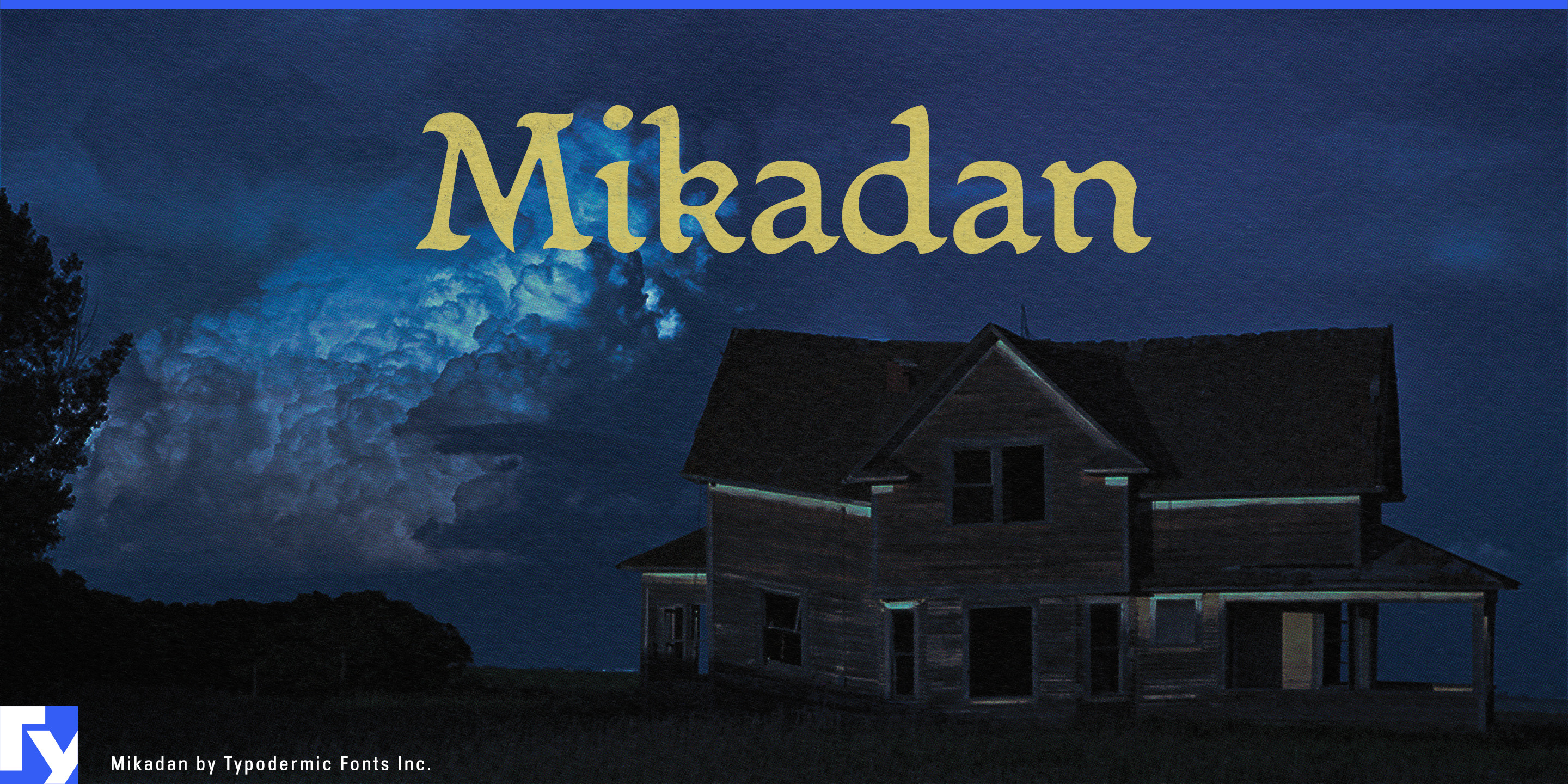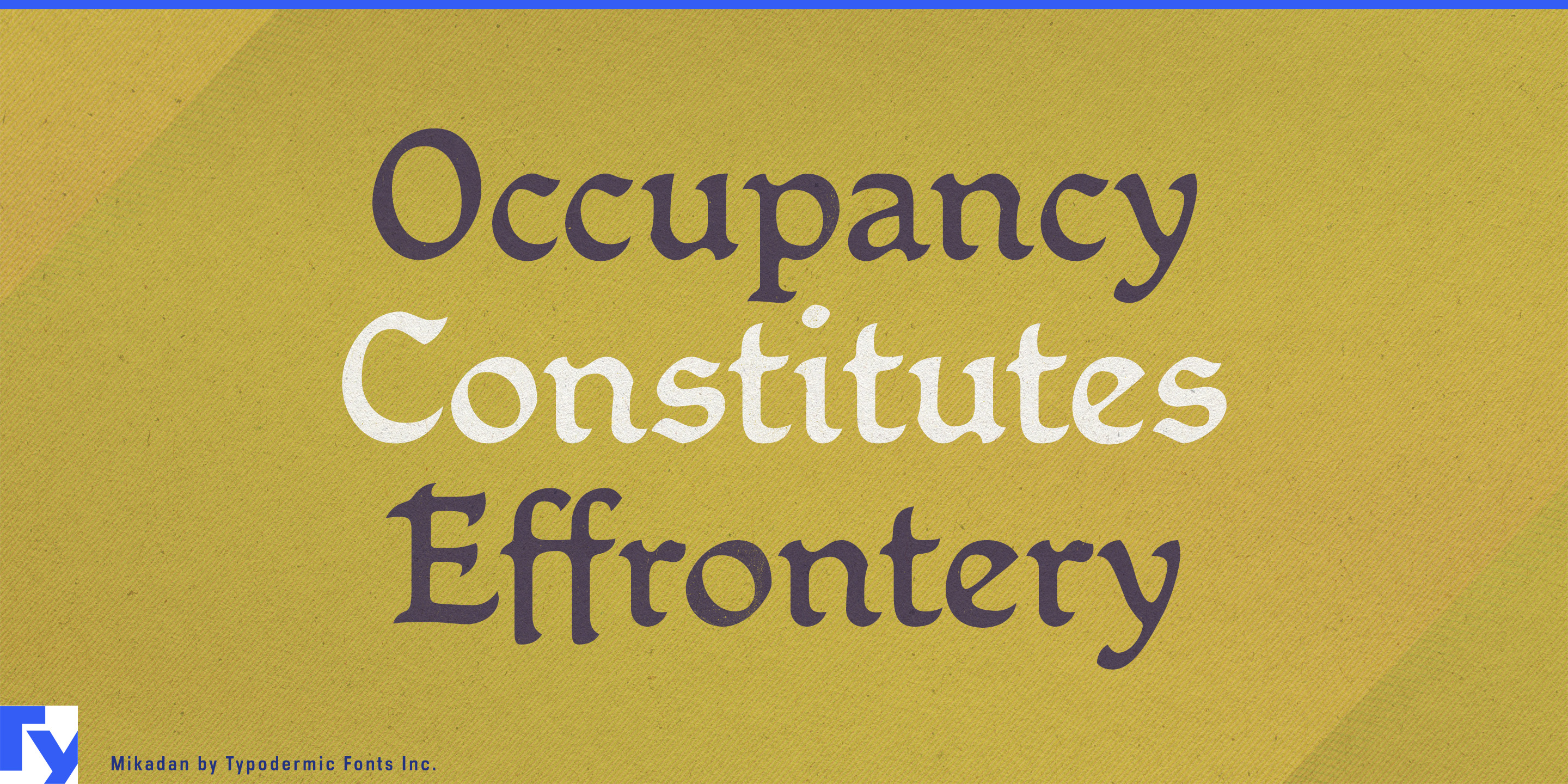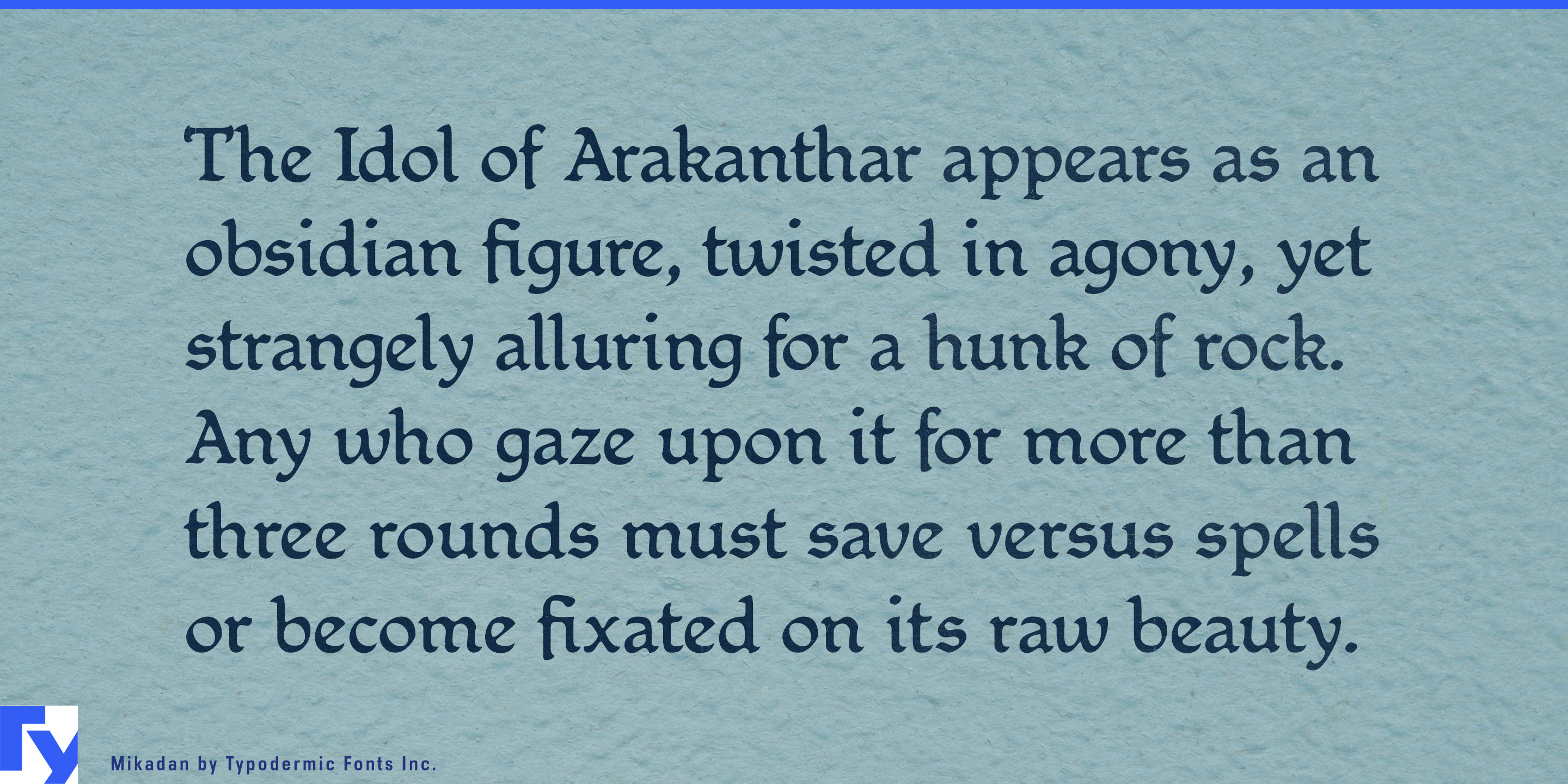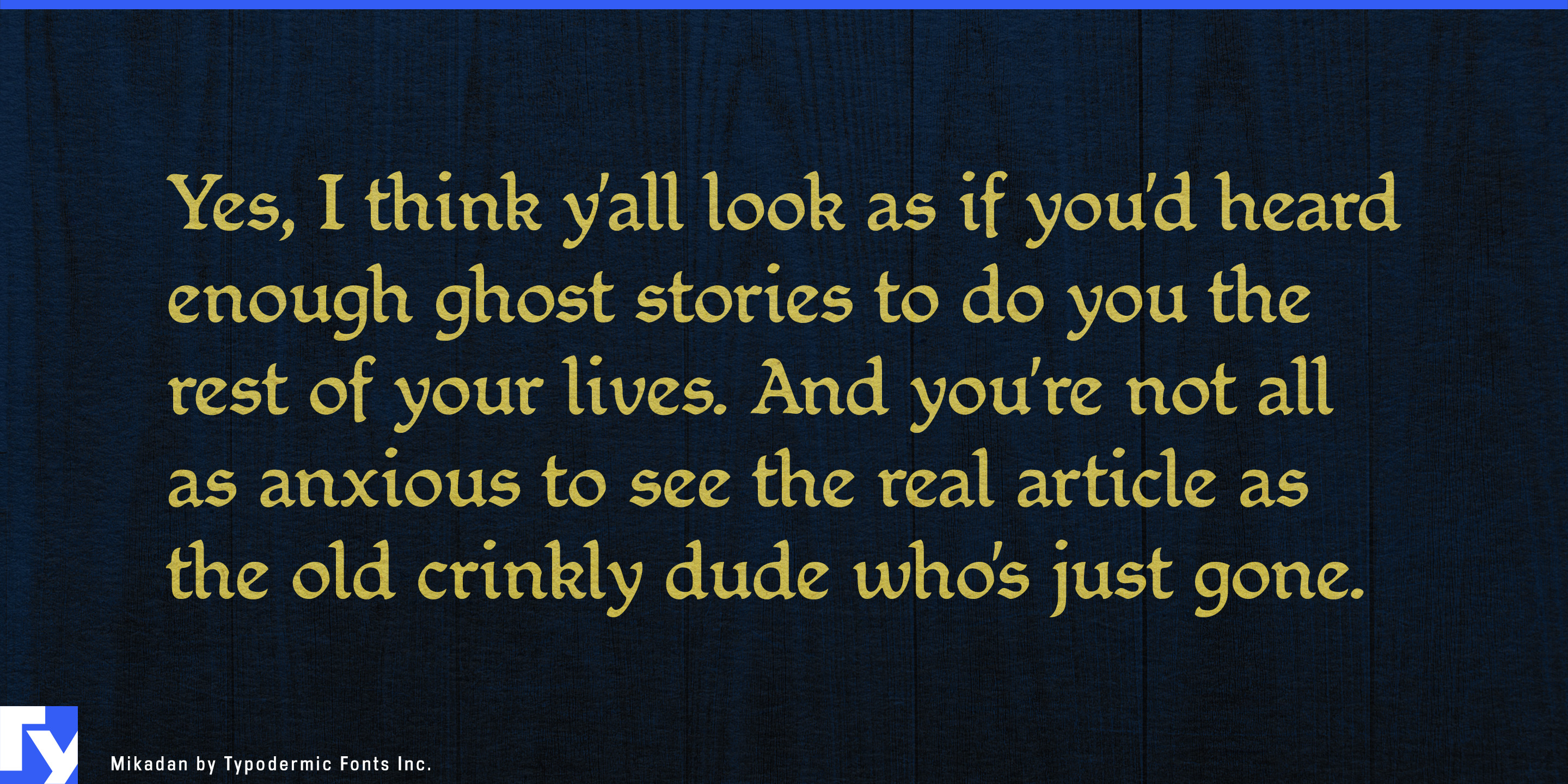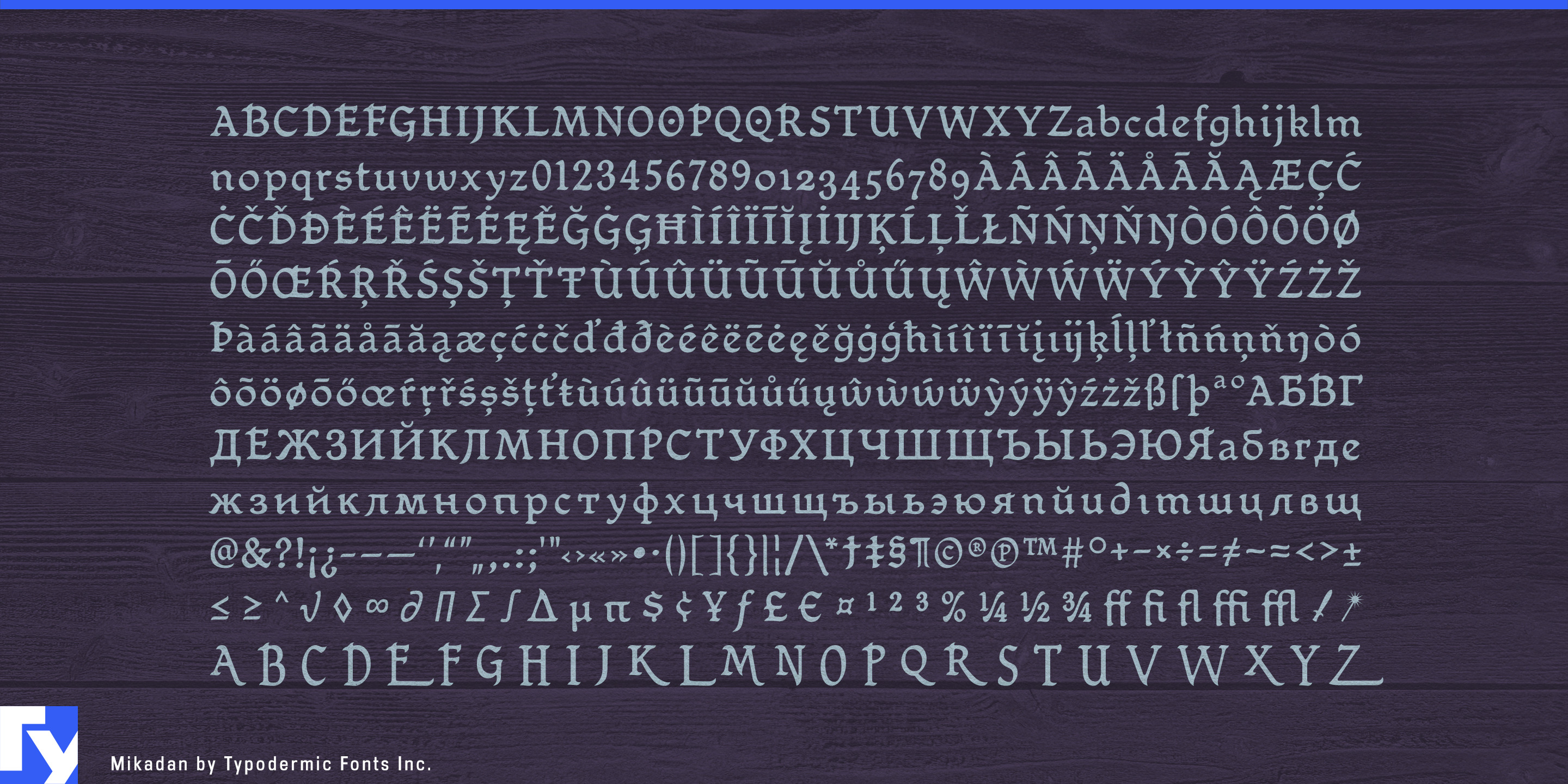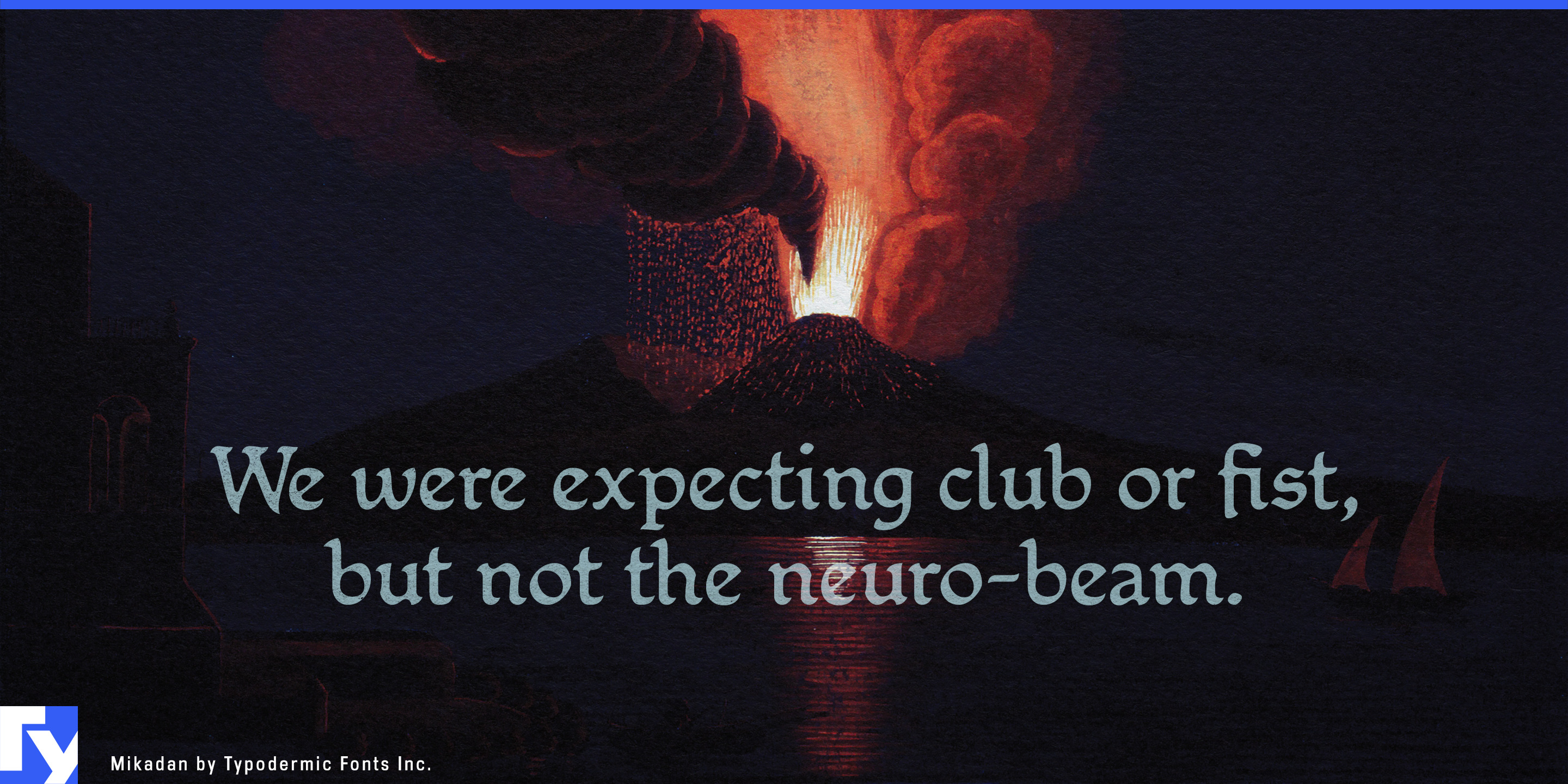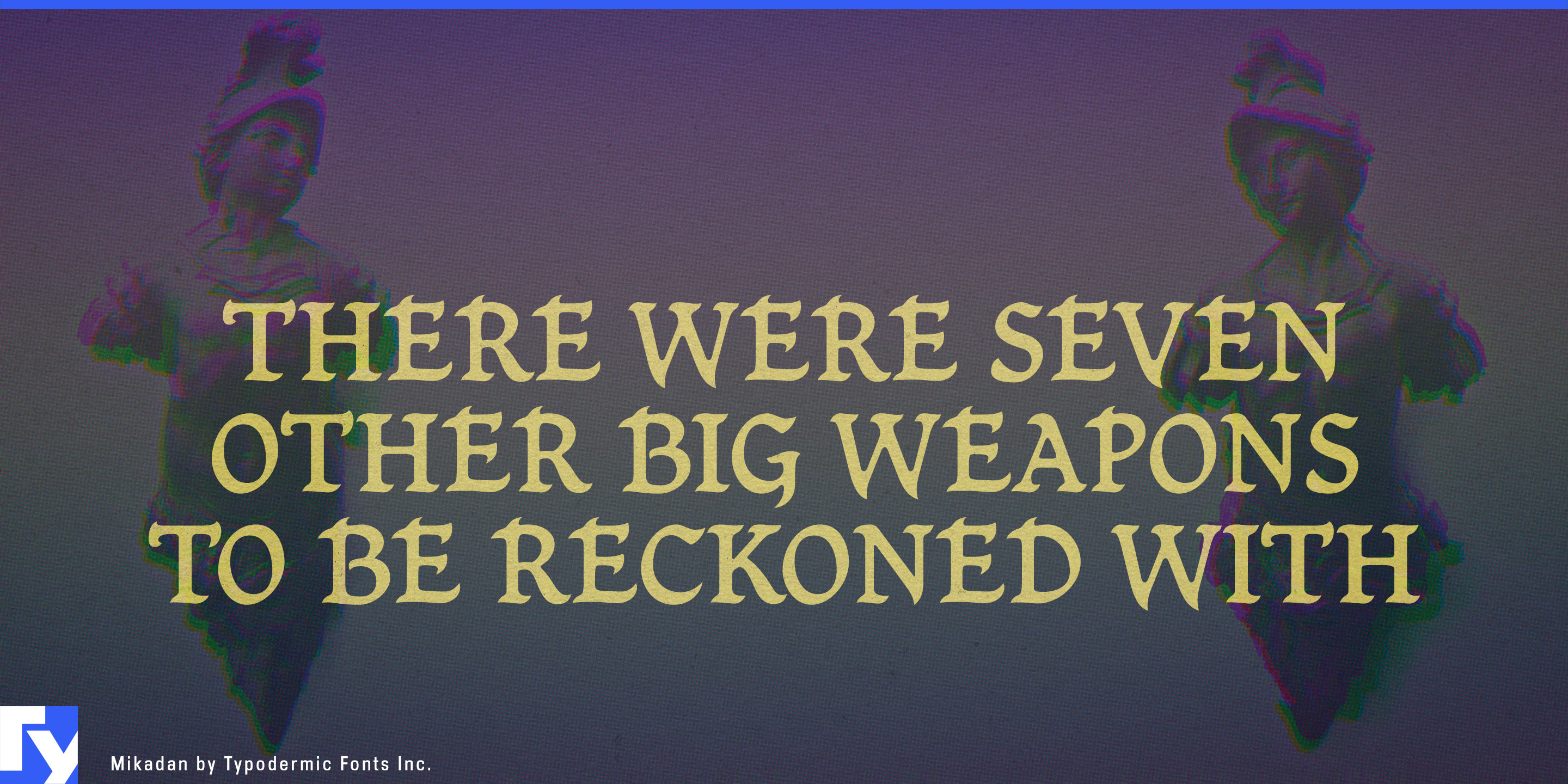
Mikadan
Mikadan walks the line between medieval romance and modern clarity, bringing the warmth of hand-drawn curves to a form that reads effortlessly in any age. Its letterforms echo the calligraphic grace of historical models like Verona, Illumanistic, and Motto, yet it refuses to be trapped in the past—each character is shaped for crisp legibility on both screen and paper.
Originally commissioned by BioWare for the Dragon Age series, Mikadan proved its strength in the demanding world of fantasy RPGs, where every line of dialogue must be clear at a glance without losing the atmosphere of its setting. That same quality makes it just as at home on a ghost story cover, a historical exhibition poster, or the sign of a boutique that trades in old-world charm. The rhythm of its strokes feels alive, with slightly rustic edges lending authenticity and a human touch. Drop-cap alternates bring extra flourish when you want a paragraph to begin like the first page of an illuminated manuscript. With full Latin and Cyrillic support, Mikadan can carry your message across cultures and continents, keeping the same timeless voice in every language.
Whether your work calls for a whisper of folklore or a confident declaration from the pulpit of history, Mikadan answers with dignity, warmth, and clarity—proof that medieval beauty can thrive in the modern world.